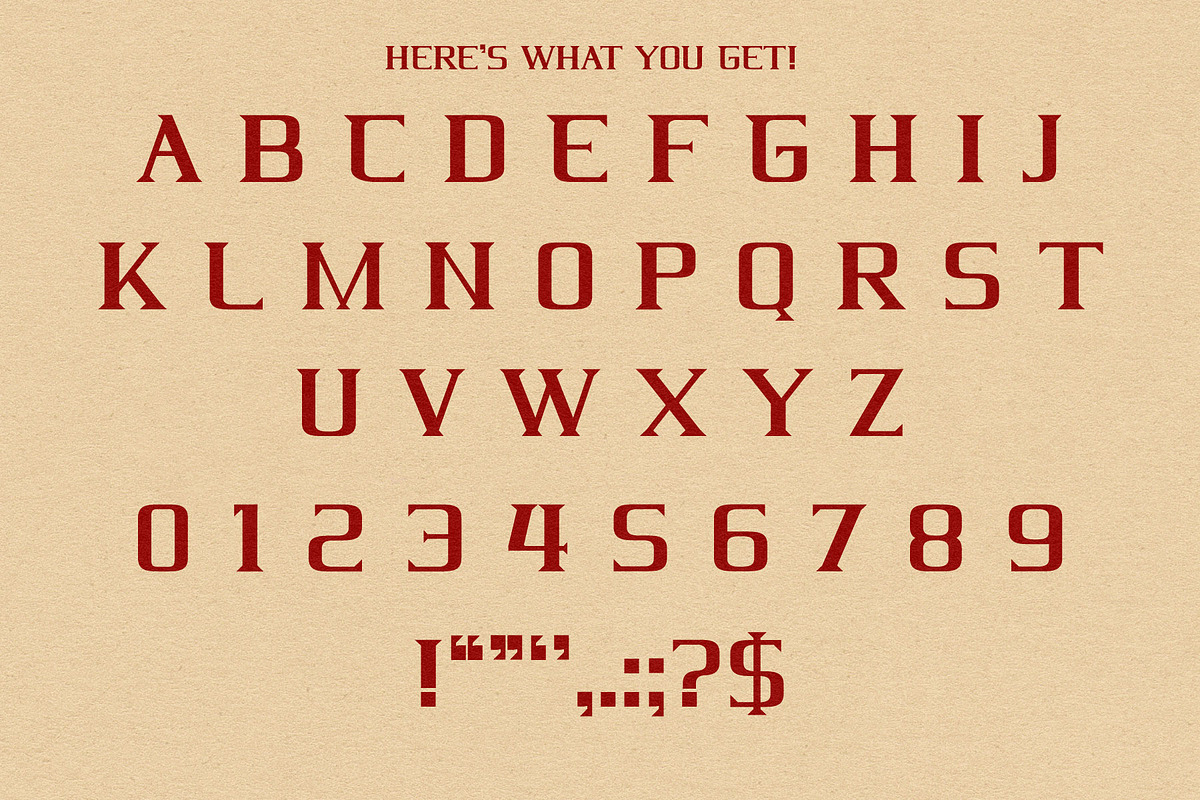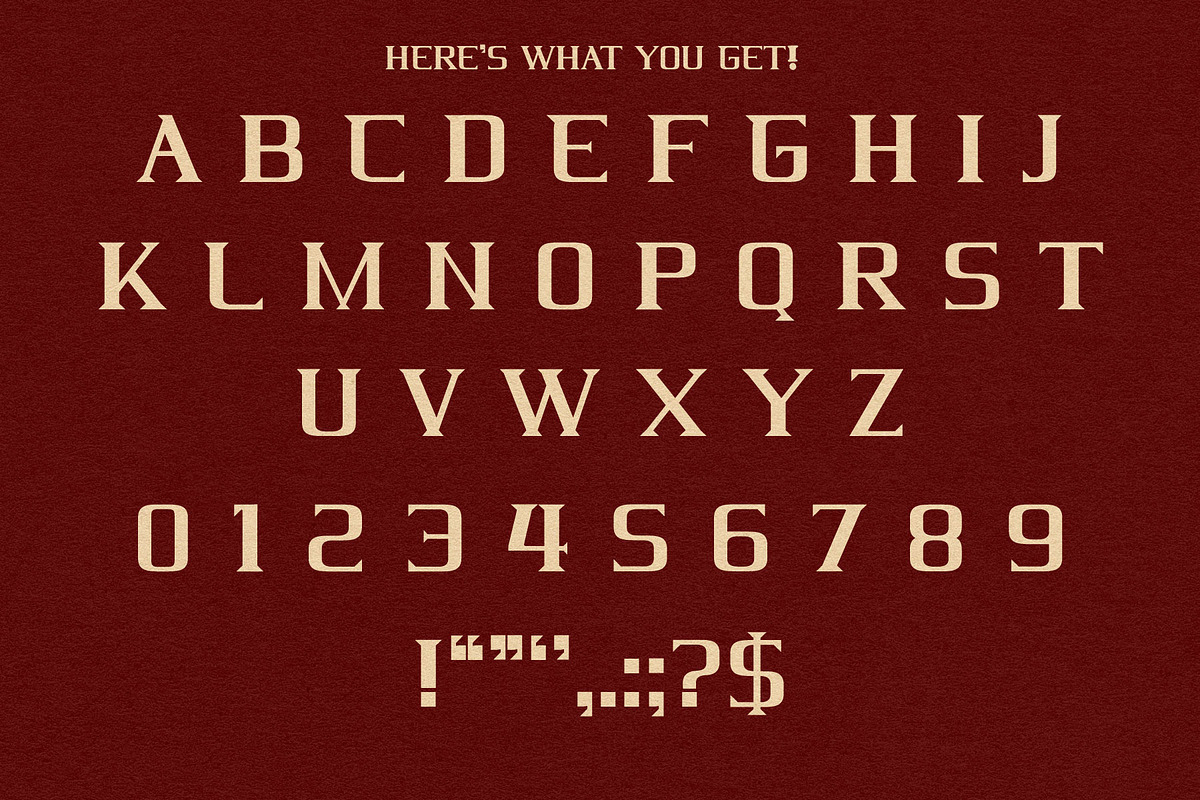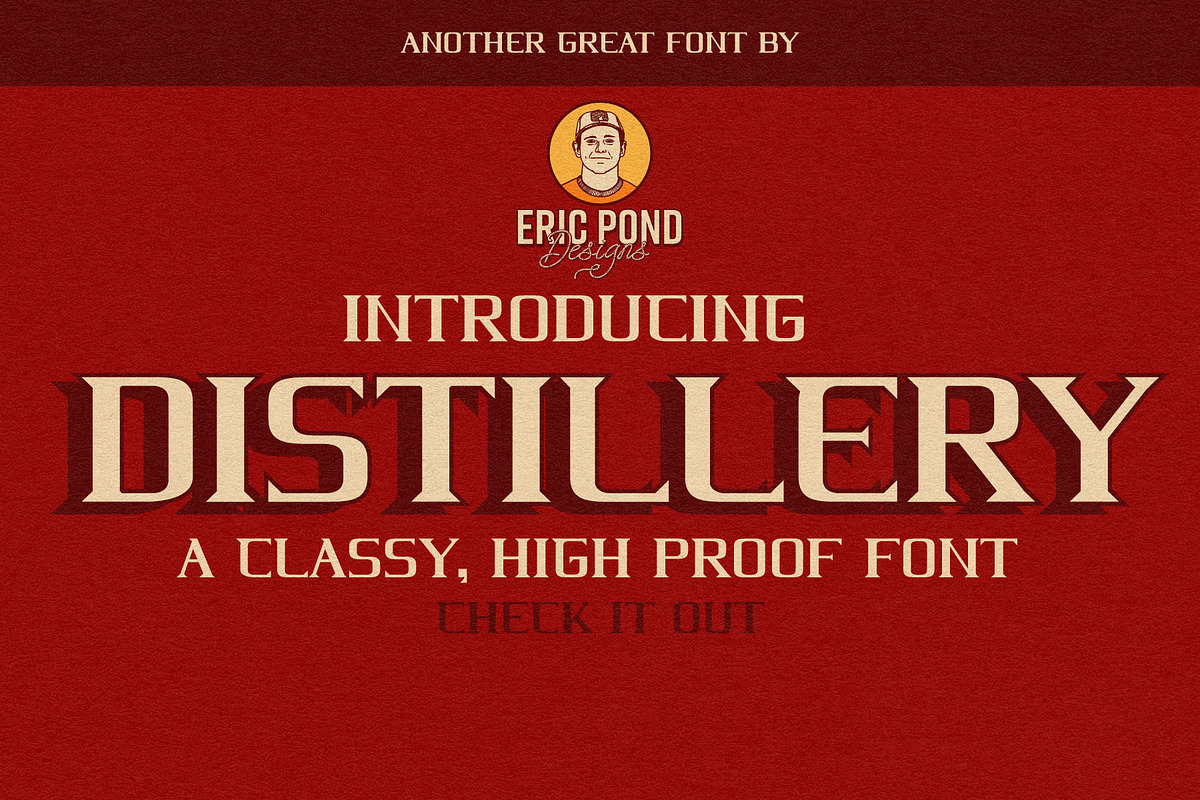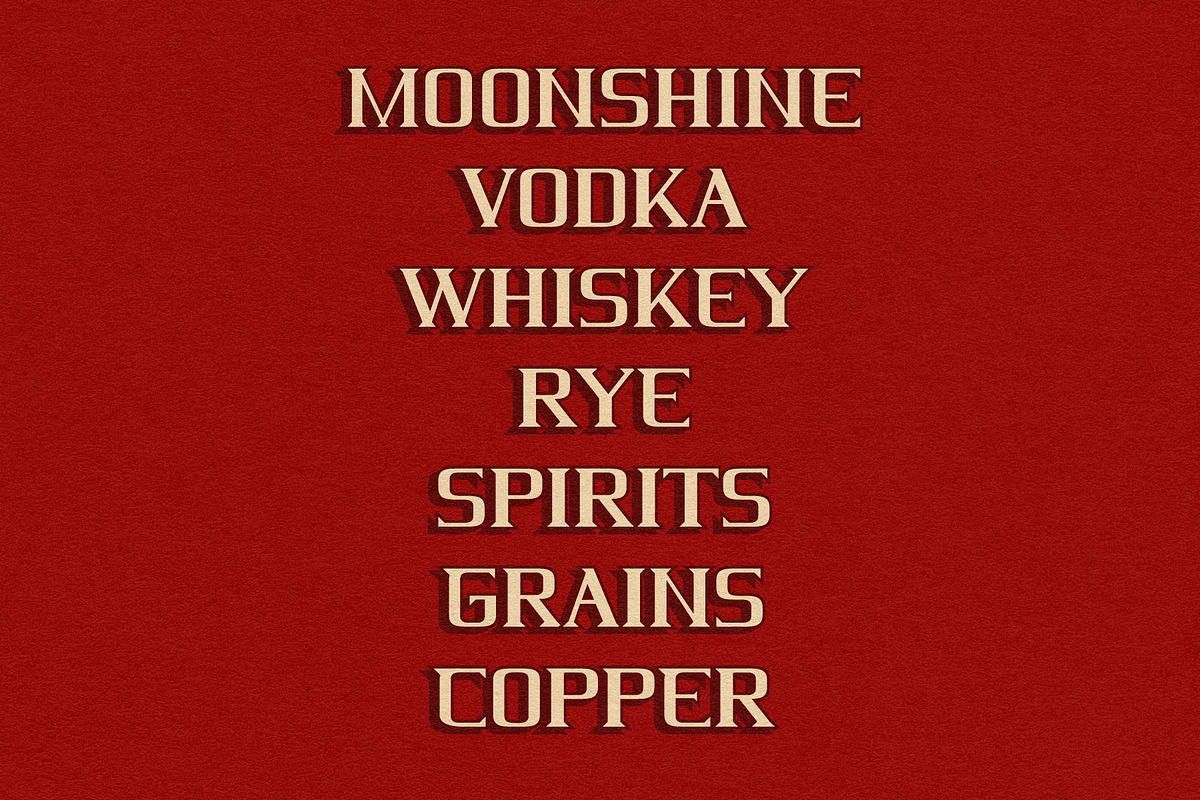
Distillery by Eric Pond Designs
Introducing Distillery - a Serif font by Eric Pond Designs, featuring classy, high proof corners for various applications! This font features uppercase, numbers and basic punctuation.